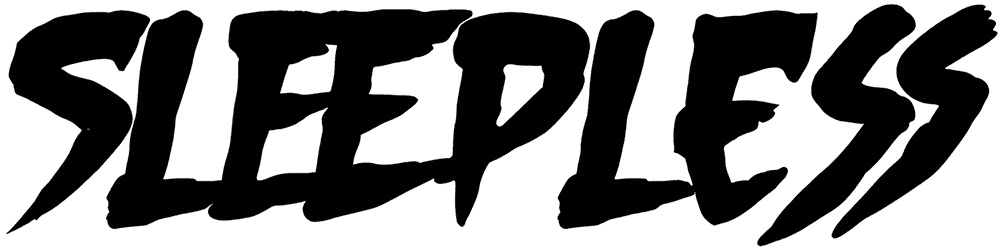
Sleepless Font
Sleepless is an angular font with a texture that creates a spooky and mysterious look. This 80s horror font adapts well to designs that need the spice of horror, and at the same time, the content is important for them.
So if you want to highlight your brand message on Halloween or show your content in a beautiful graphic format, this horror font will help improve the way you talk to customers and your visual identity, even without lowercase letters and some numbers.